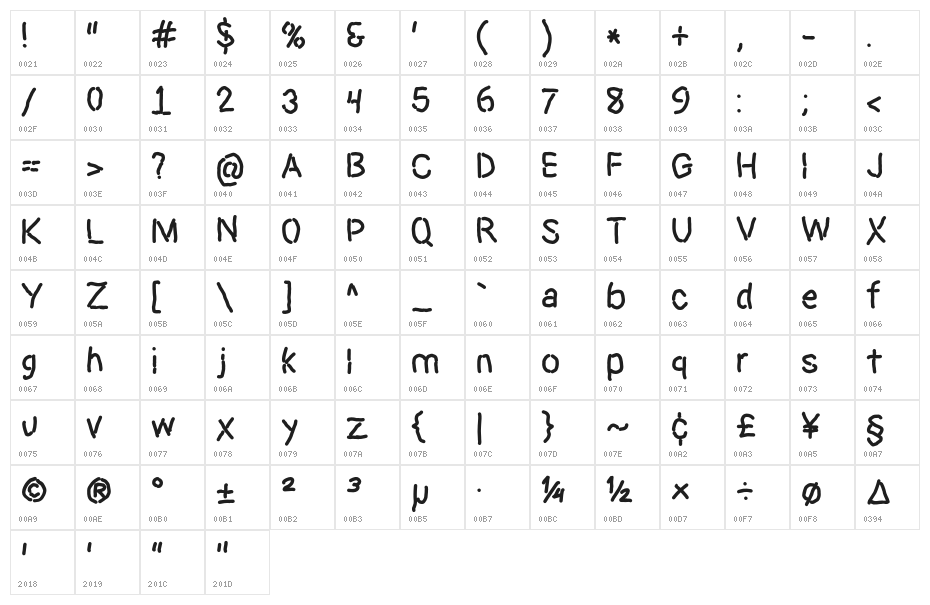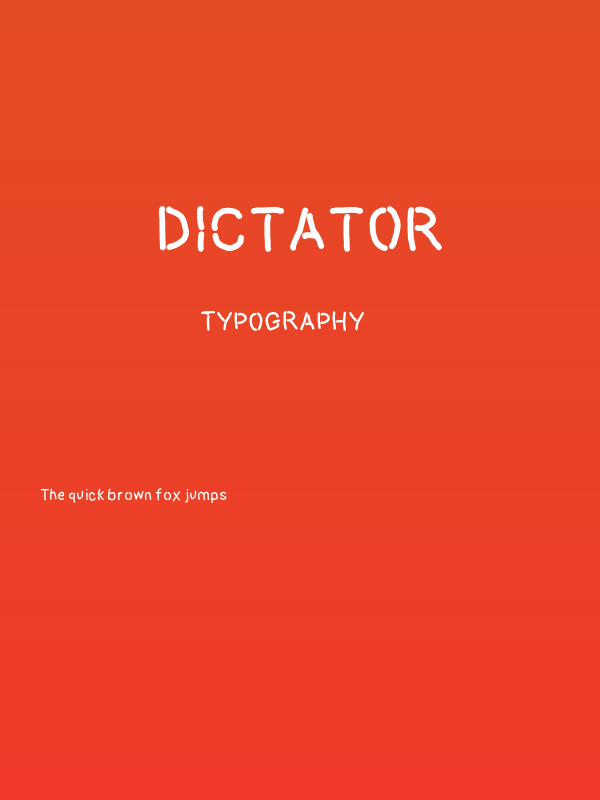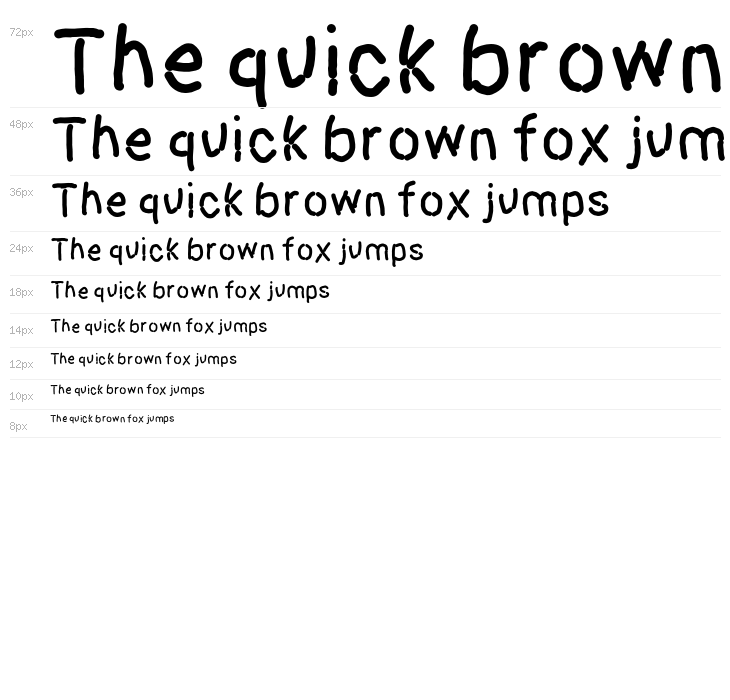
Dictator Font
| Gesamtstil | Playful, Casual, Handmade |
| Anwendungsfall | Headlines, Logos, Informal Text |
| Vorgeschlagene Projekte | Great for children's books, casual invitations, playful branding, or any project needing a whimsical touch. |